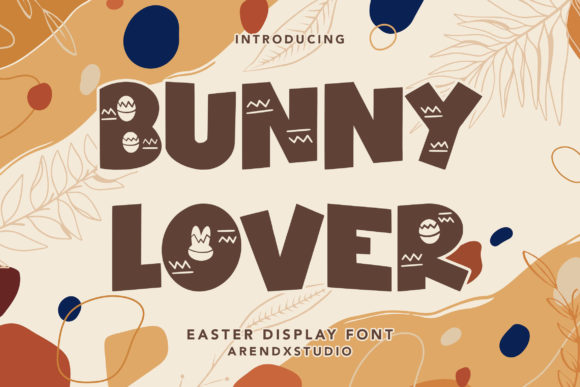
The Ultimate Font for Bunny Enthusiasts: A Comprehensive Guide to Bunny Lover Font
As a designer, I’ve had my fair share of font struggles. I recall working on a project for a client who wanted a bold, eye-catching font for their bunny-themed poster. After hours of scouring the internet, I stumbled upon the Bunny Lover Font and it instantly became my go-to. Its cool, bold, and thick lettered display style was exactly what I needed to bring the poster to life.
An Honest Review of Bunny Lover Font
What I Love About Bunny Lover Font
- ✨ Cool and bold design: The font’s unique style is perfect for creating eye-catching posters, flyers, and prints.
- ✅ PUA encoded: With PUA encoding, accessing glyphs and swashes is a breeze, making it easy to get creative with your designs.
- 💡 High versatility: Bunny Lover Font can be used for a wide range of projects, from Easter-themed crafts to everyday design work.
While Bunny Lover Font is an excellent choice, there are a few things to keep in mind:
- 🤔 Limited use cases for formal designs: Due to its bold and playful nature, Bunny Lover Font might not be the best fit for formal or professional designs.
- ⚠️ Requires OpenType features support: To get the most out of Bunny Lover Font, you’ll need to use software that supports OpenType features.
The Backstory Behind Bunny Lover Font
Bunny Lover Font was designed with one goal in mind: to create a bold, eye-catching font that’s perfect for bunny enthusiasts. The designer, inspired by the playful nature of bunnies, set out to create a font that’s both fun and versatile.
Q: What is PUA encoding, and how does it benefit designers?
PUA (Private Use Area) encoding allows designers to access a wide range of glyphs and swashes, making it easier to create unique and creative designs.
Q: Does Bunny Lover Font support OpenType features?
Yes, Bunny Lover Font supports OpenType features, allowing designers to access a range of glyphs, swashes, and stylistic alternates.